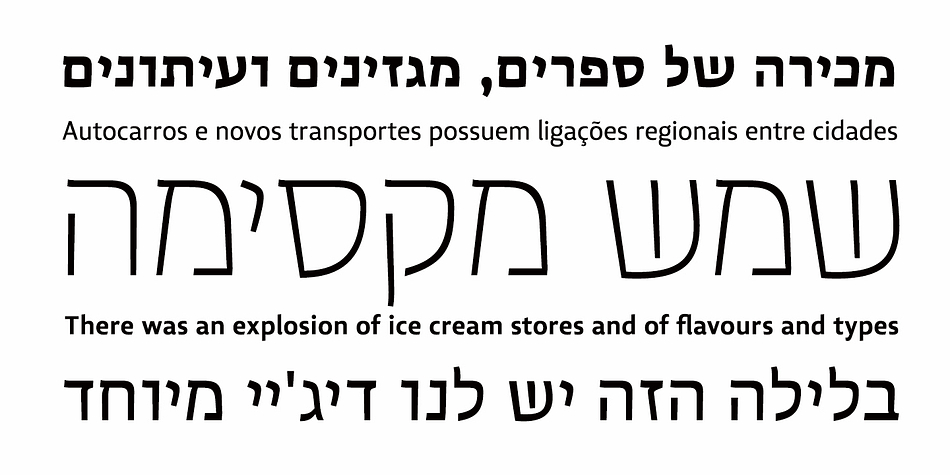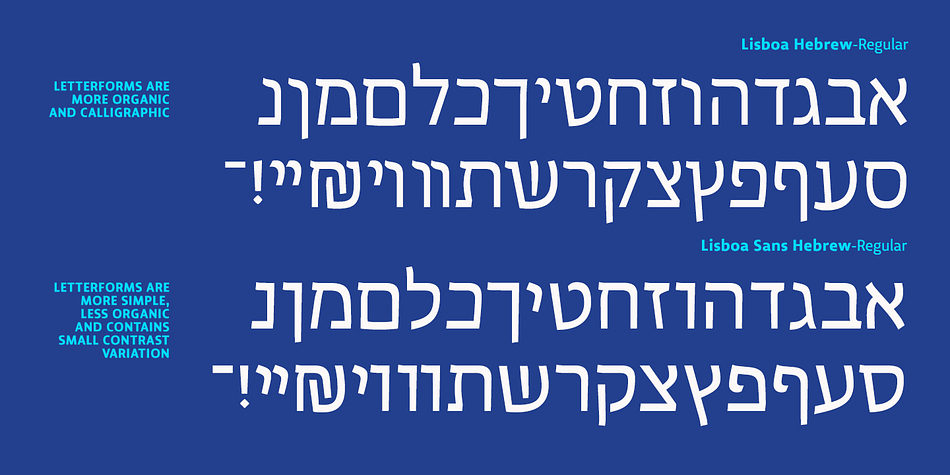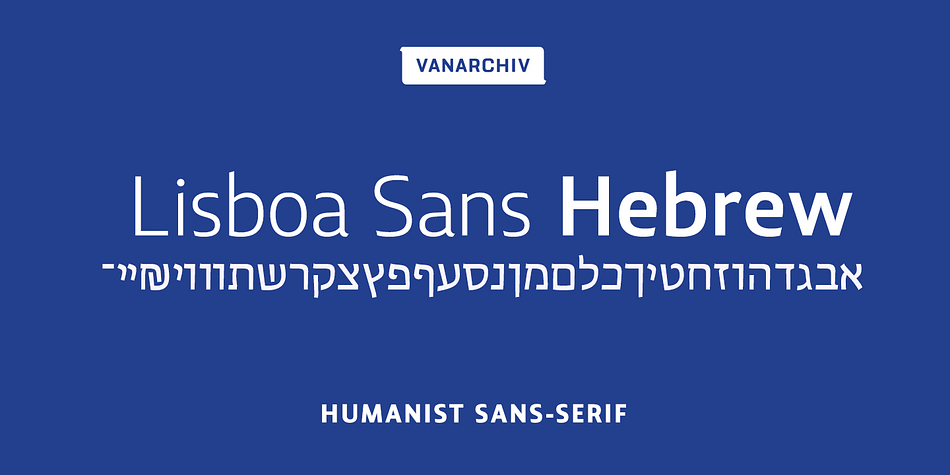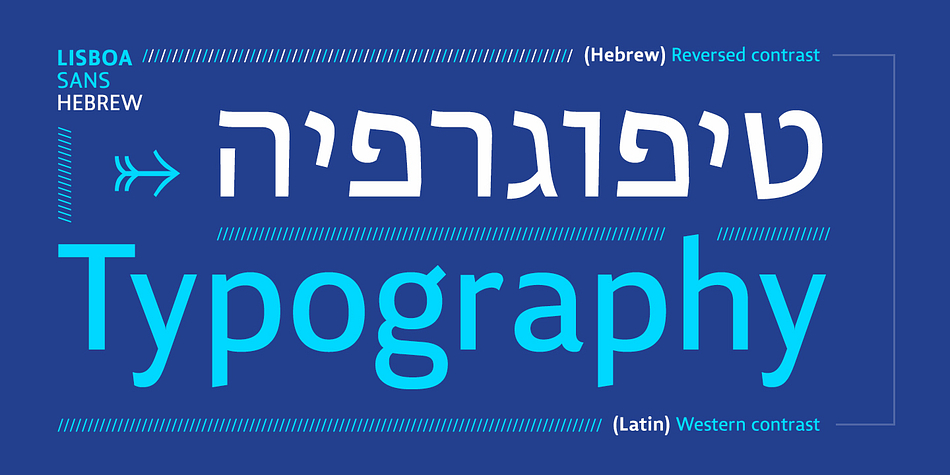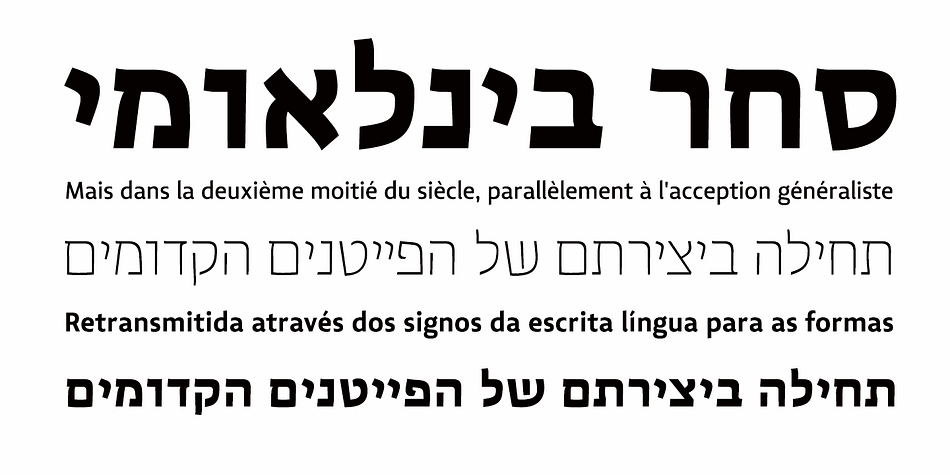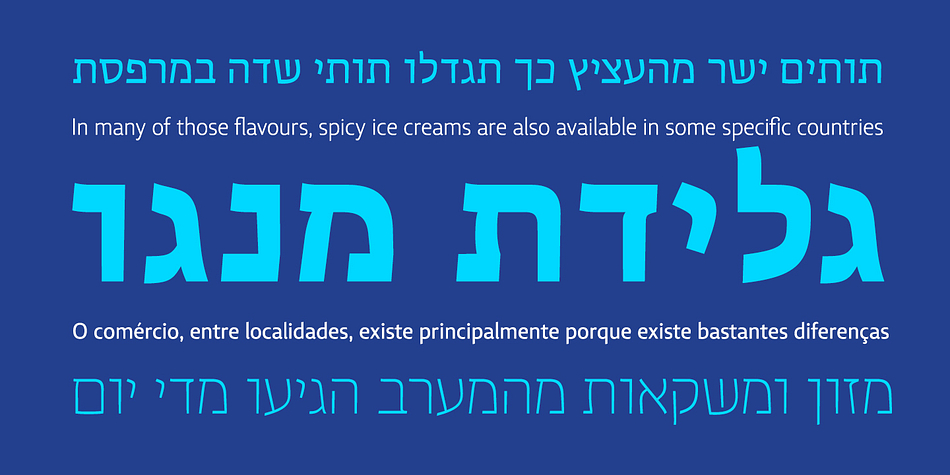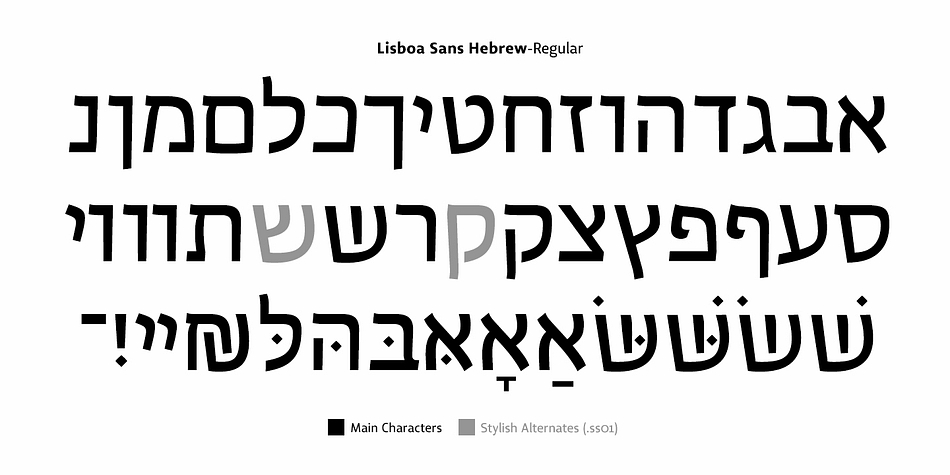
Designed by Ricardo Santos, Lisboa Sans Hebrew is a sans serif font family. This typeface has nine styles and was published by Vanarchiv.
Lisboa Sans Hebrew is humanist sans-serif typeface, the design approach is much more simple and neutral than Lisboa Hebrew font family. Latin transliteration characters were also included.